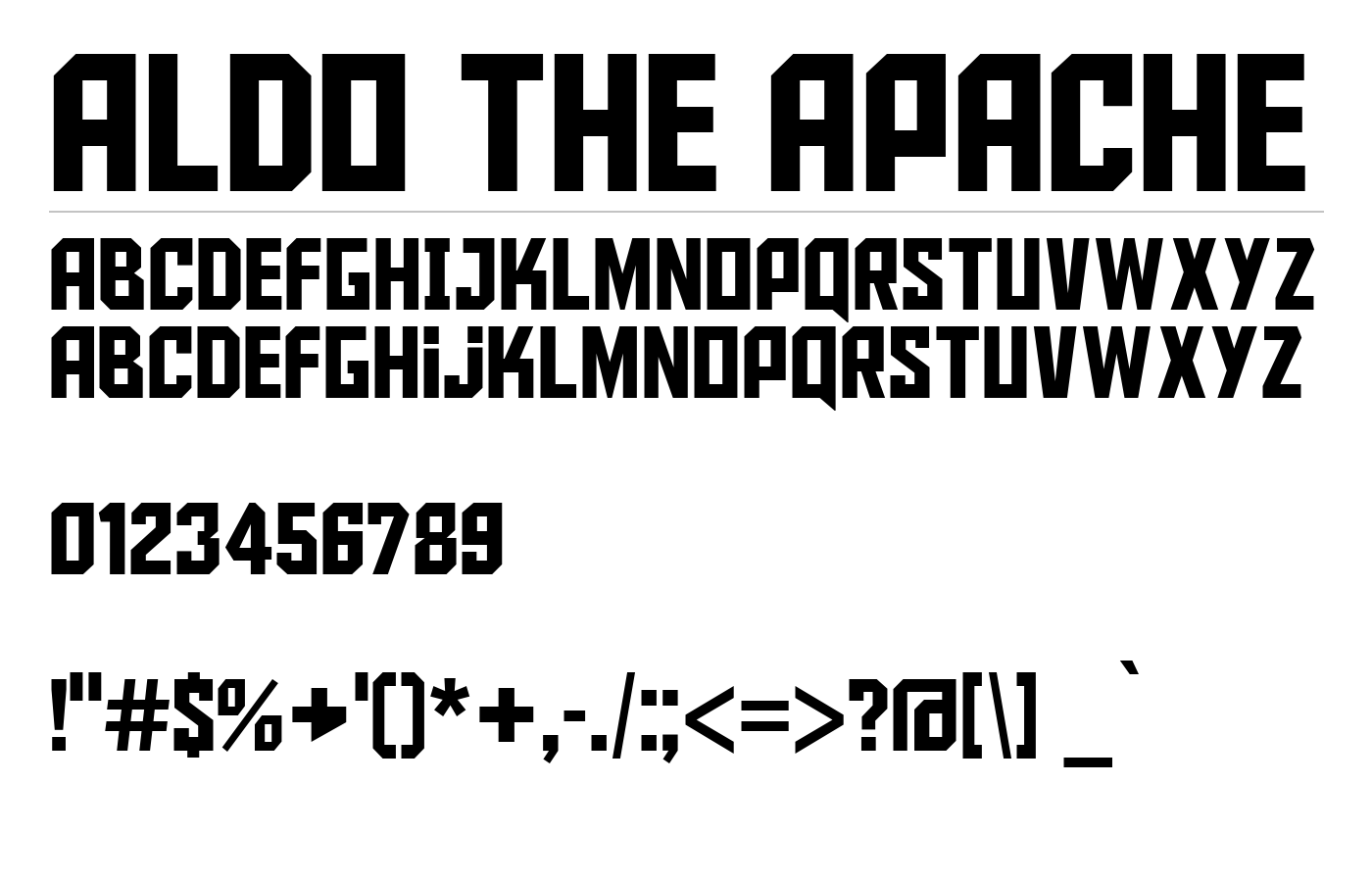
Aldo the Apache is a bold, condensed sans serif font with a strong, geometric structure and sharp edges that create a striking, powerful appearance. Its all-uppercase style and unique angular details make it perfect for impactful headlines, logos, and branding that demand attention and convey strength or ruggedness. This font works well in designs needing a modern yet commanding presence, especially in posters, sports, or adventure-themed projects.
Aldo the Apache Font
About Aldo the Apache Font
| Font family | Aldo the Apache Font |
| Designer | AJ Paglia |